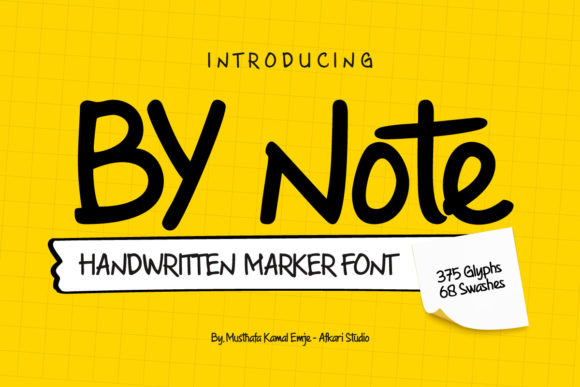
By Note Font: The Perfect Handwritten Font for Your Creative Endeavors
In a world saturated with digital communication, the written word has taken on a new significance. With By Note Font, you have the power to transform your digital notes, quotes, and designs into captivating works of art.
By Note Font is a simple yet elegant handwritten font that exudes a natural and unique style. Its carefully crafted characters dance across your screen, leaving a trail of charm and personality. Whether you're a blogger, a designer, or simply someone who loves to express themselves through words, By Note Font is the perfect tool to bring your ideas to life.
With its versatility, By Note Font effortlessly adapts to a wide range of creative projects. Whether you're designing book covers, creating eye-catching posters, or crafting heartwarming greeting cards, By Note Font seamlessly blends into your vision, adding a touch of authenticity and charm. Its playful and inviting nature also makes it ideal for children's projects, adding a touch of whimsy and imagination to their creative expressions.
Step into the world of By Note Font and unlock a treasure trove of creative possibilities. Its clean lines and smooth curves lend themselves beautifully to creating logos that speak volumes about your brand. The font's organic flow adds a touch of elegance to wedding invitations, transforming them into cherished keepsakes. Unleash your inner artist and let By Note Font guide you as you create stunning posters that capture the essence of your message.
The beauty of By Note Font lies in its ability to evoke emotions and create connections. Its handwritten style adds a human touch to your designs, making them relatable and inviting. Use By Note Font to craft heartfelt quotes that resonate with your audience, leaving a lasting impression. Create captivating social media posts that draw your followers in and make them feel like they're part of something special. With By Note Font, your words will dance off the screen, captivating hearts and minds wherever they go.